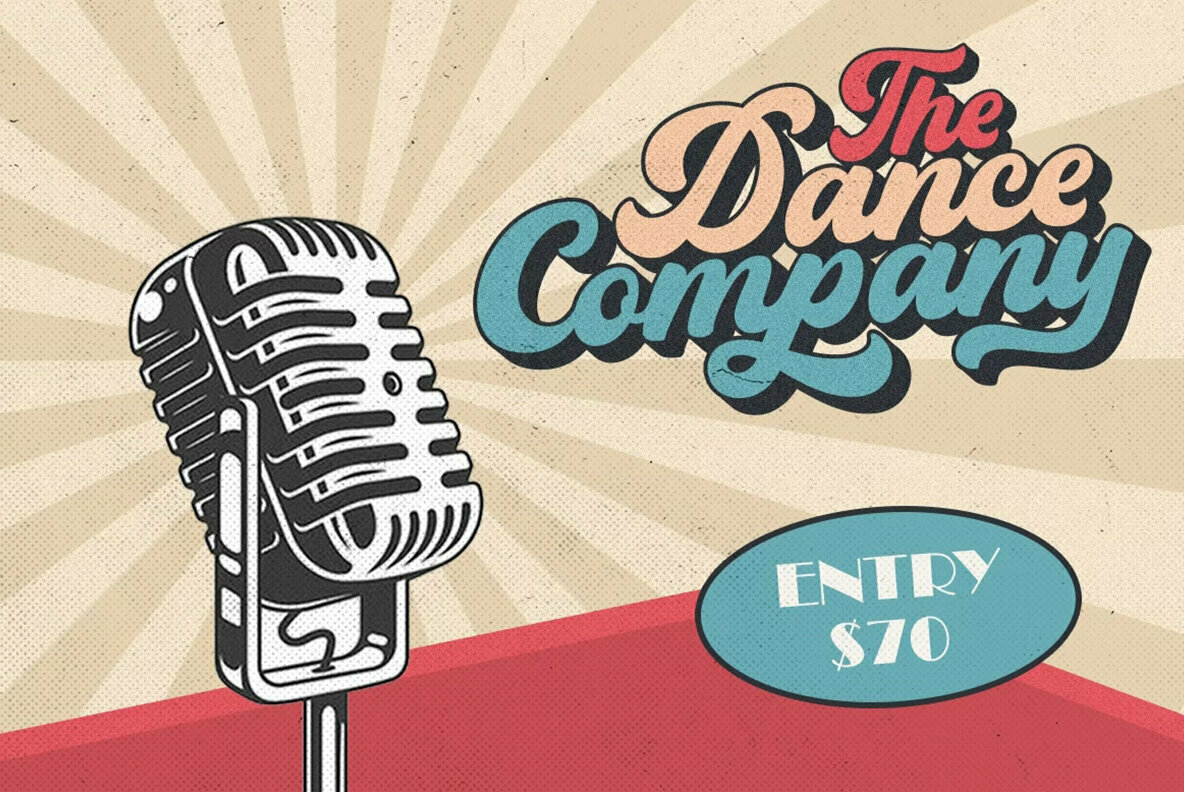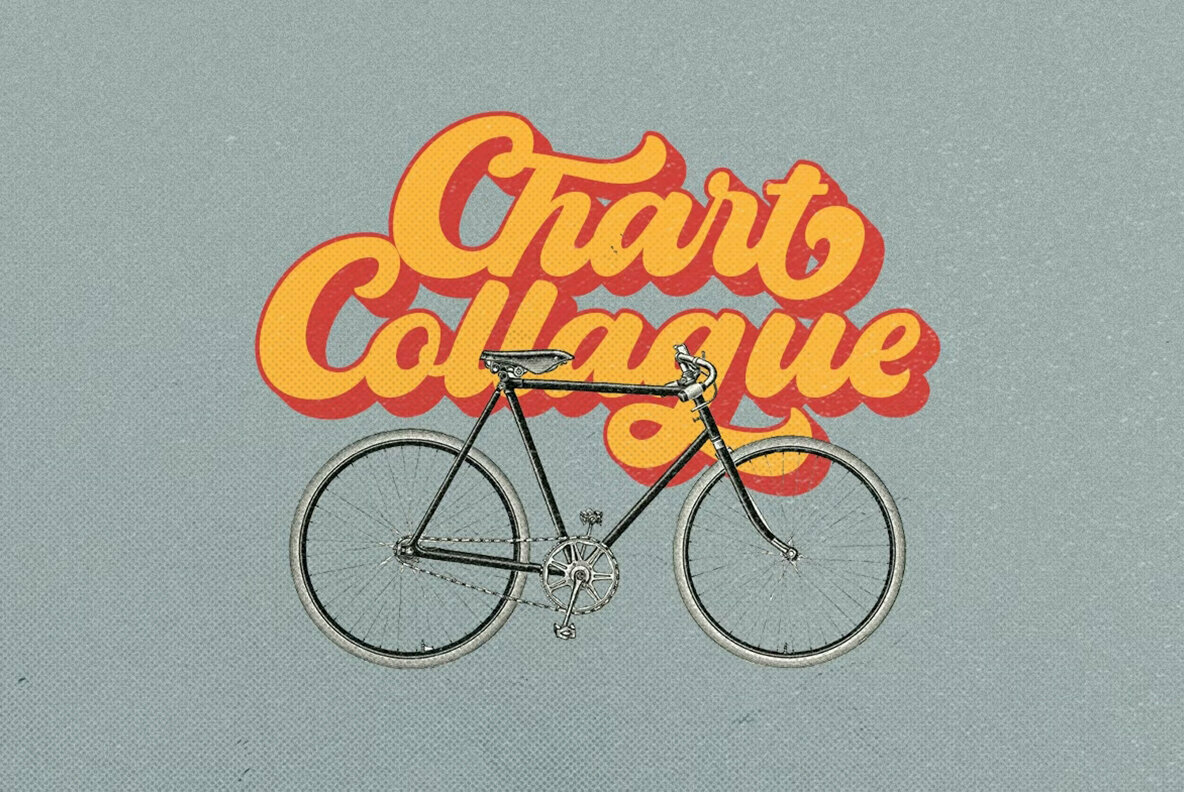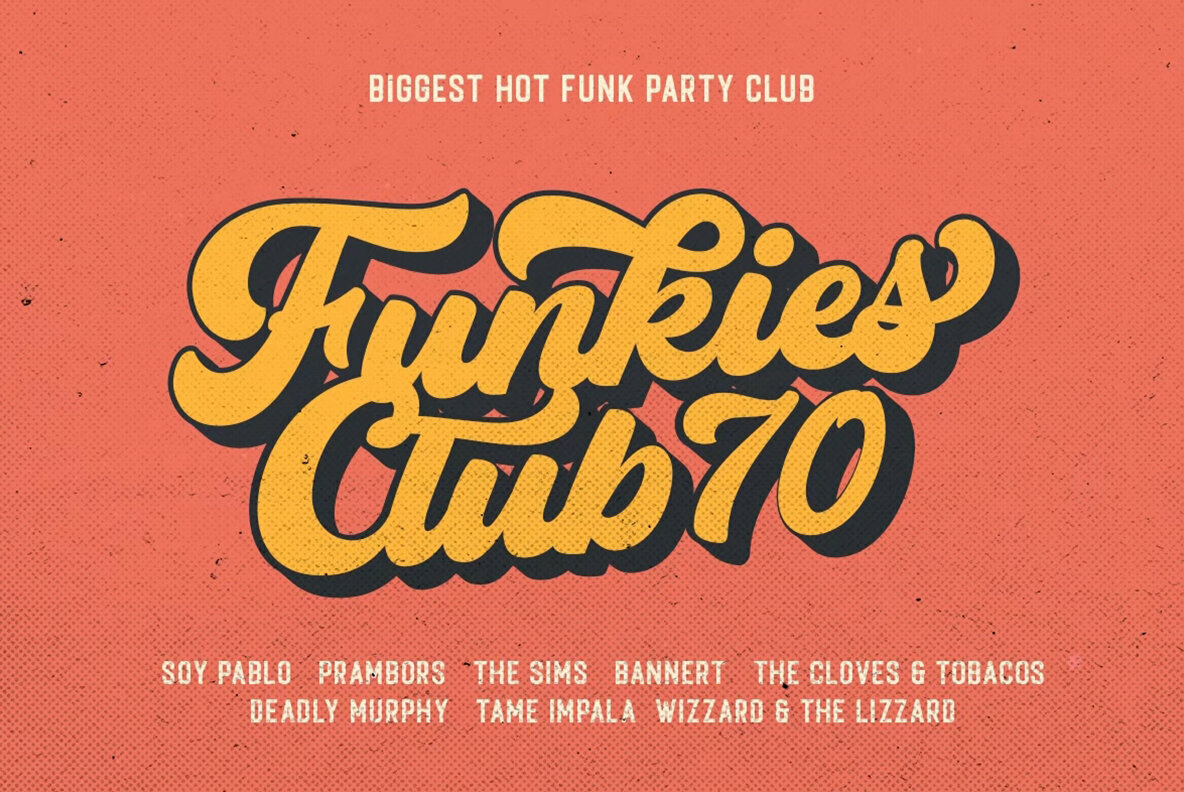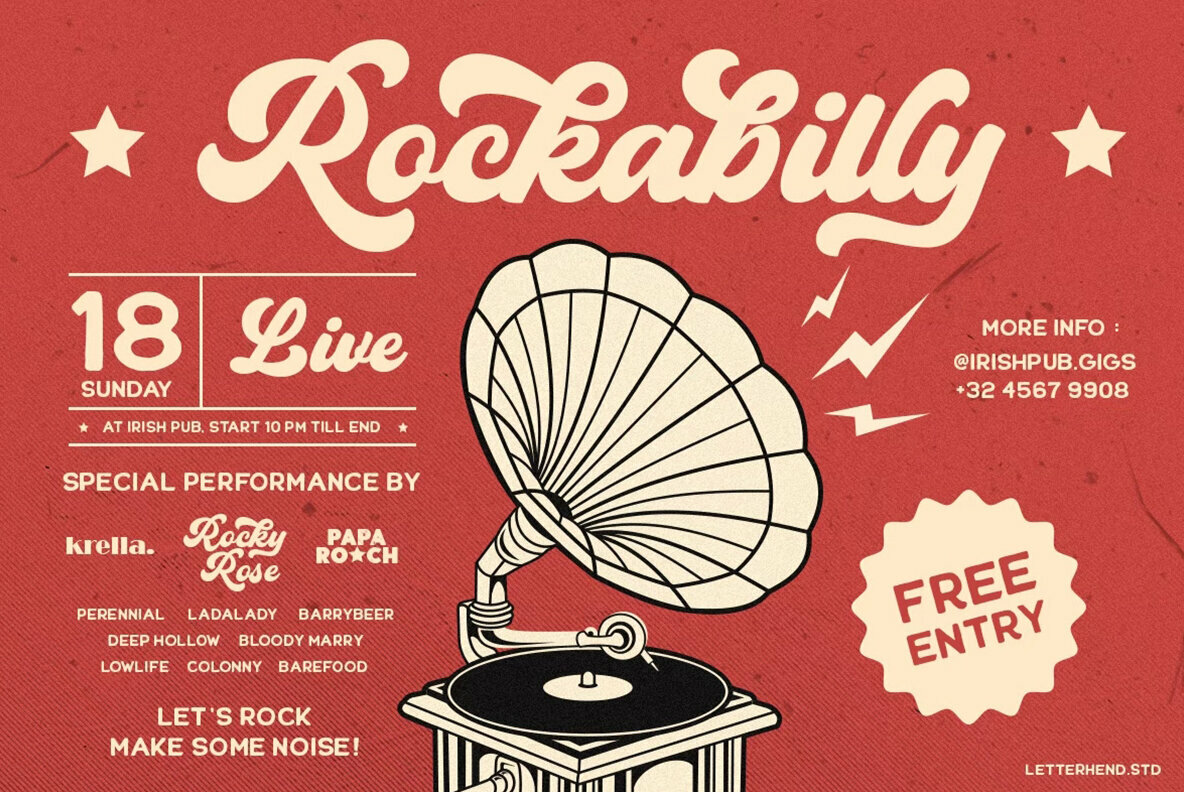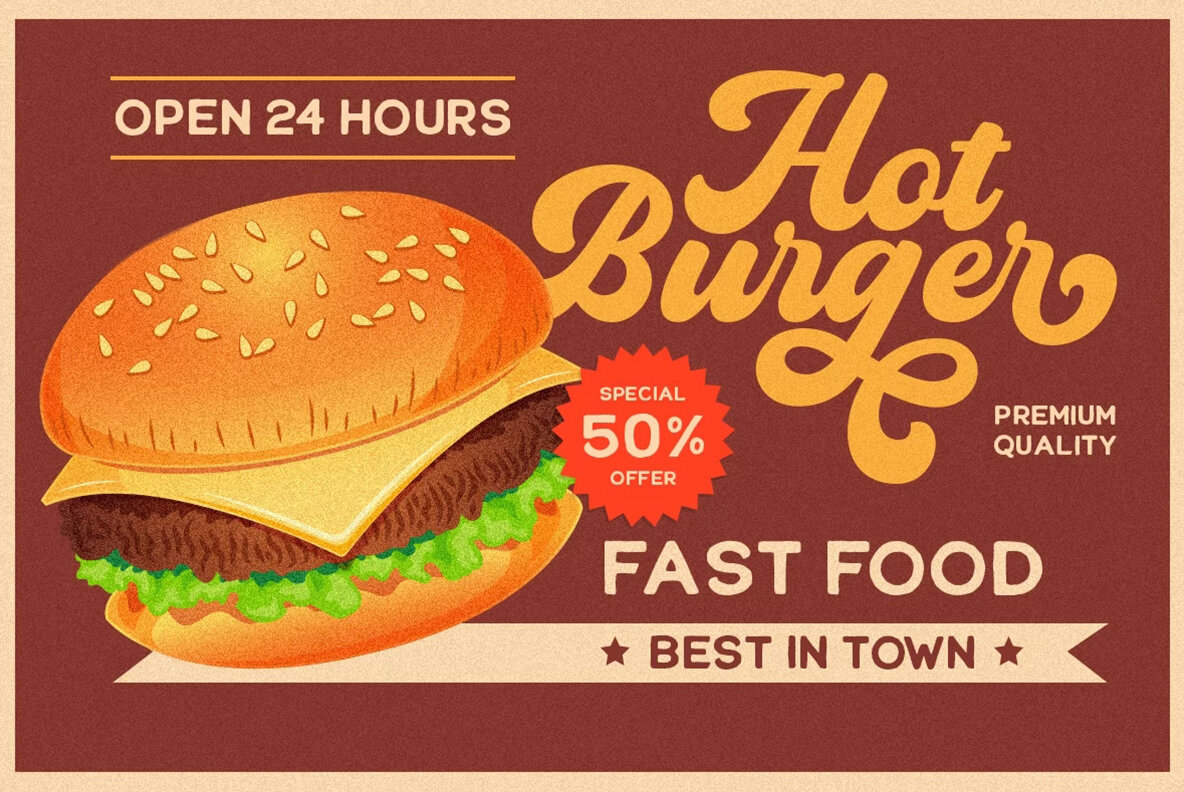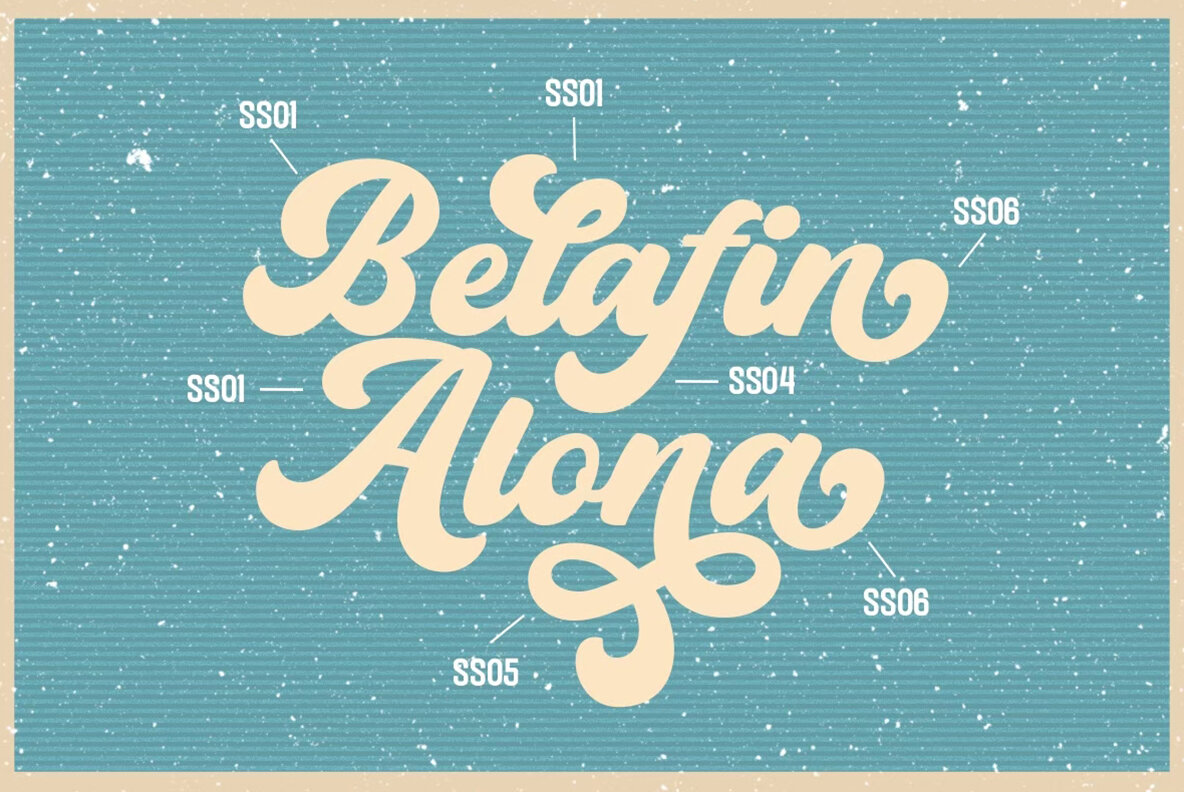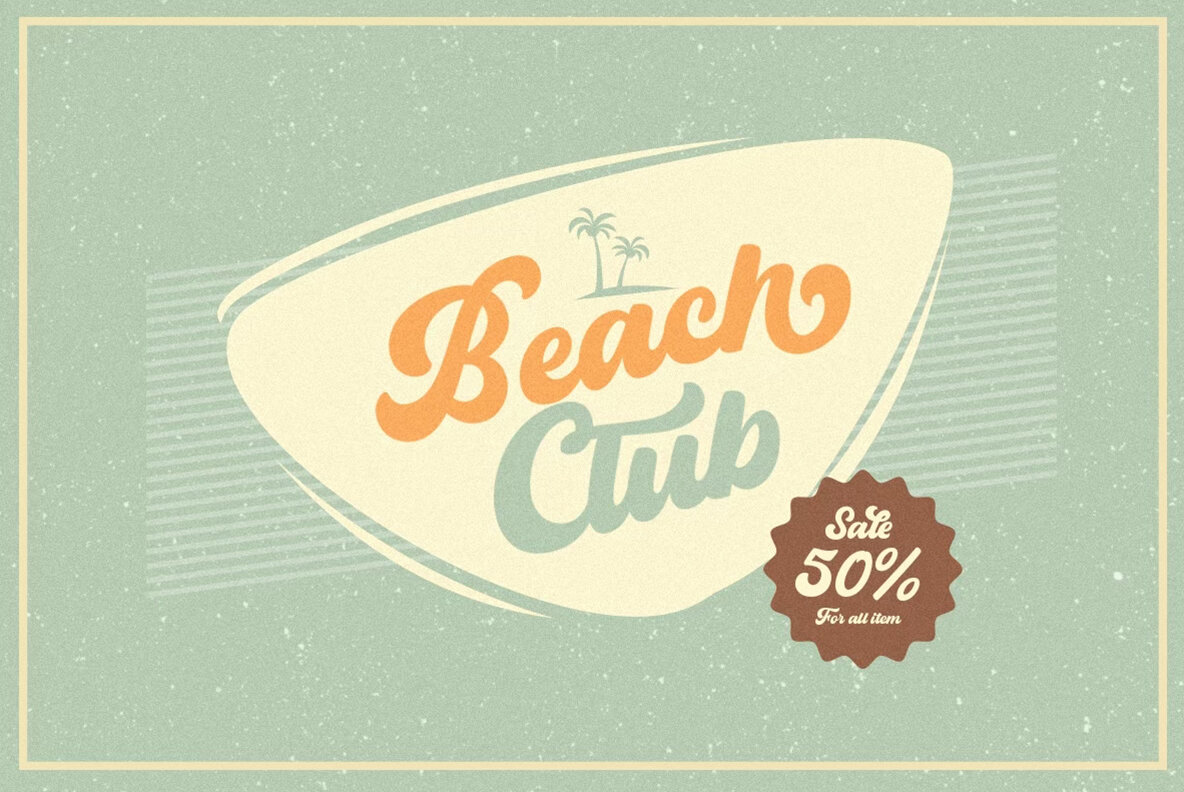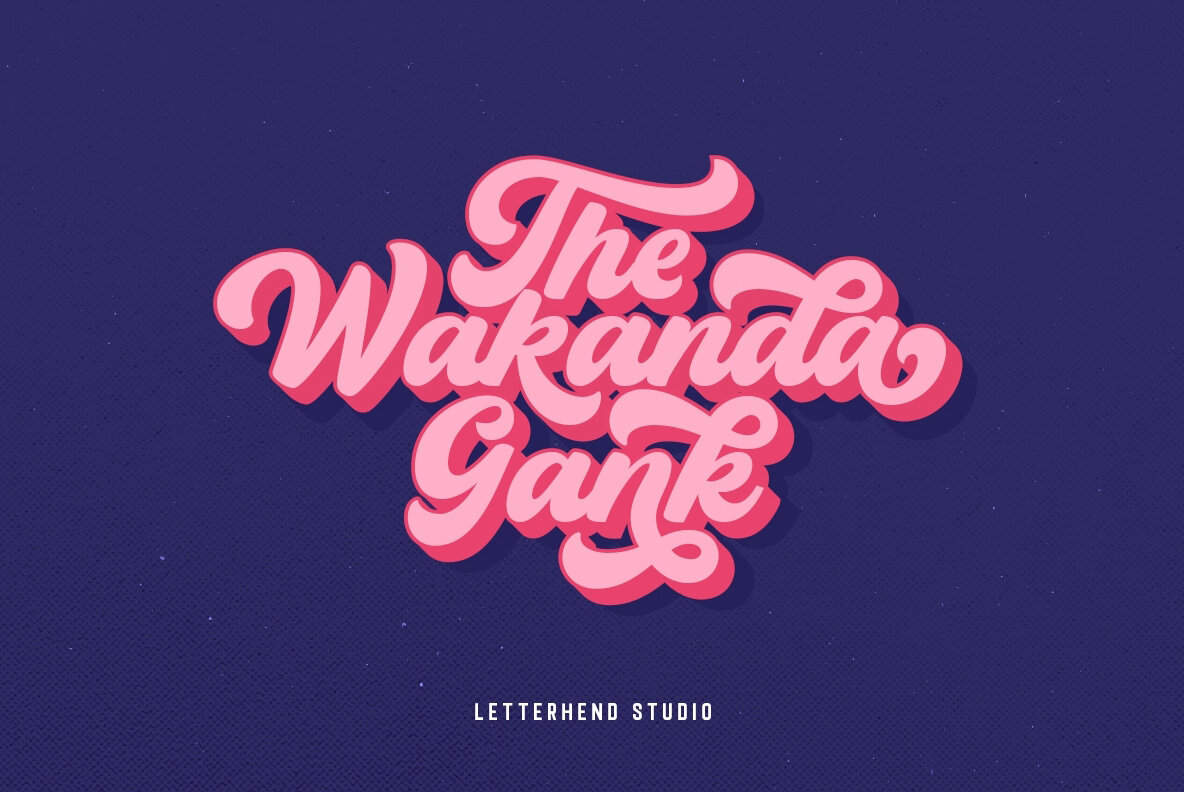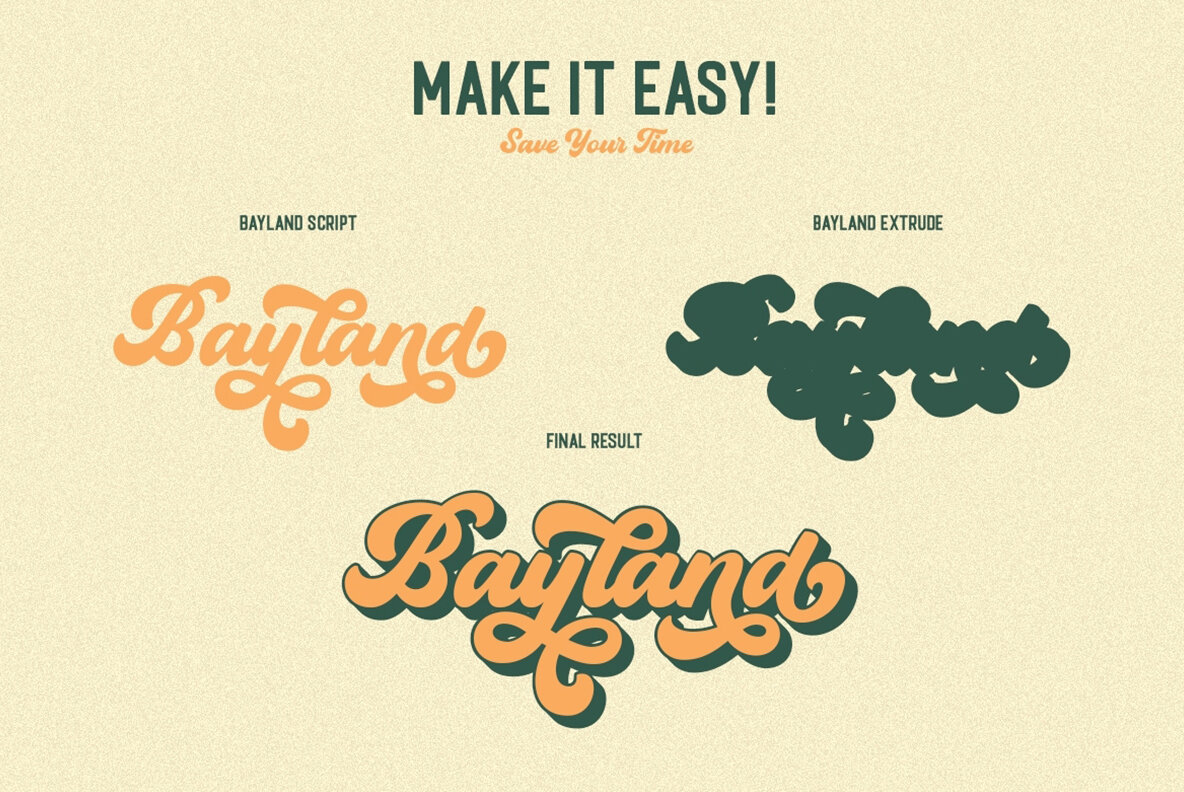
Bayland Font
Step back into the vibrant 1960s with Bayland, a bold script font designed to evoke a sense of nostalgia. Created with a built-in extrude version, this typeface simplifies the creation of retro effects, making it an ideal choice for a variety of design projects. Whether you're crafting logos, invitations, or magazine covers, Bayland's vintage charm elevates your work with ease. Features:Bayland: Retro Bold Script